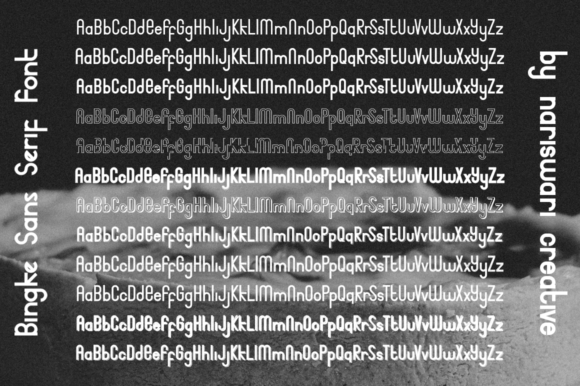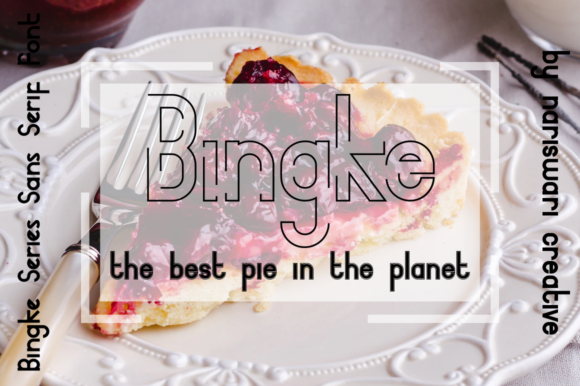
Bingke Font: Elevate Your Designs with a Minimal and Neat Sans Serif
In the world of typography, fonts play a crucial role in conveying messages, expressing creativity, and setting the tone for a brand or project. For designers and crafters, finding the perfect font can be a daunting task. However, if you’re looking for a versatile and visually appealing option, look no further than the Bingke Font. This minimal and neat sans serif font is designed to seamlessly integrate into a wide range of projects, making it an excellent addition to your creative toolkit.
What is Bingke Font?
Bingke is a thoughtfully crafted sans serif font that boasts a clean and minimalist aesthetic. Its straightforward design makes it an incredibly versatile choice, suitable for various applications, from digital platforms to print materials. The font’s simplicity allows it to adapt effortlessly to different contexts, ensuring that your message always takes center stage.
Key Features of Bingke Font
- Minimalist Design: Bingke’s clean lines and uncluttered appearance make it perfect for designs that require a subtle touch.
- Neat and Readable: The font’s clear and legible design ensures that your text is easy to read, even at smaller sizes.
- Sans Serif: The absence of serifs gives Bingke a modern and streamlined look that’s ideal for digital and contemporary designs.
- Highly Versatile: Whether you’re working on a website, logo, or print project, Bingke can be easily adapted to suit your needs.
Benefits of Using Bingke Font
So, why should you choose Bingke for your next project? Here are just a few benefits of incorporating this font into your design:
- Enhanced Readability: Bingke’s clear design ensures that your text is easy to read, making it perfect for body text, headings, and more.
- Professional Look: The font’s minimalist aesthetic gives your design a sleek and professional appearance that’s sure to impress.
- Flexibility: Bingke can be used in a wide range of projects, from digital platforms to print materials, making it a valuable addition to your font library.
- Unique Touch: While Bingke is a simple font, its subtle charm can add a unique touch to your designs, setting them apart from more generic options.
How to Use Bingke Font in Your Designs
Integrating Bingke into your workflow is easy. Here are a few tips to get you started:
- Pair it with Other Fonts: Bingke works well with a variety of fonts, so don’t be afraid to experiment with different pairings to find the perfect combination for your project.
- Adjust Font Sizes: Use Bingke at different font sizes to create visual hierarchy and emphasize key information.
- Experiment with Colors: The font’s simplicity makes it easy to use with a wide range of colors, so try experimenting with different palettes to find the perfect fit.
In conclusion, the Bingke Font is an excellent choice for designers and crafters looking for a versatile and visually appealing sans serif font. Its minimalist design, readability, and flexibility make it perfect for a wide range of projects. By incorporating Bingke into your creative toolkit, you’ll be able to elevate your designs and add a unique touch that sets them apart. So why wait? Download Bingke today and discover how this simple yet effective font can enhance your work.